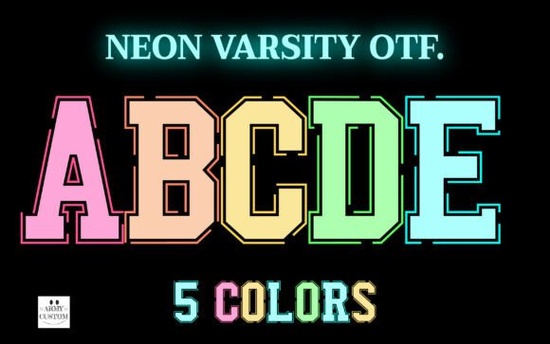
The Neon Varsity Font is a bold, glowing typeface that combines classic athletic lettering with a bright neon effect. It's built for sublimation projects but works well across all kinds of print-on-demand products. If you're looking for a font that makes designs pop on shirts, mugs, tumblers, and other merchandise, this one delivers a distinct look that's hard to ignore.
What makes this font stand out for sublimation designs?
Sublimation printing relies on vivid colors and sharp details. The Varsity Letters and Numbers neon typeface was designed with this in mind. Each letter and number carries a glowing neon effect that translates well onto polyester fabrics, ceramic mugs, and coated drinkware. The vibrant energy of the font gives products a youthful, sporty feel without looking generic.
Unlike standard varsity fonts that use flat block letters, this version adds a luminous quality. That extra visual layer makes it a strong choice when you want designs that look modern and eye-catching on finished products.
What can you create with a neon varsity style?
This typeface works across a wide range of projects. Here are some popular uses:
- Custom shirts and hoodies perfect for team names, numbers, and bold slogans
- Mugs and tumblers the neon glow adds personality to drinkware designs
- Phone cases and accessories a quick way to make trendy products
- Posters and wall art great for sports-themed or retro-inspired decor
- Social media graphics use it for Instagram posts, YouTube thumbnails, or event promos
- Stickers and decals the bold style cuts well and reads clearly at smaller sizes
If you're building a collection of colorful typefaces for your design toolkit, this one fills a specific niche that many other fonts don't cover.
Is this font easy to use for beginners?
For sublimation, you'll want to pair it with a dark or black background to get the full neon glow effect. On lighter surfaces, the glow may not be as visible, so keep that in mind when planning your layouts.
Who is this font best suited for?
The Neon Varsity Font is a solid pick for:
- Print-on-demand sellers who want fresh, trending design elements for their stores
- Small business owners creating branded merchandise or event materials
- Crafters and hobbyists working on personal projects like team gifts or party decor
- Graphic designers looking for a sporty, retro-neon aesthetic in their work
If your audience responds to bold colors and athletic styling, this typeface gives you a ready-made visual identity to work with.
How does it compare to other neon or varsity fonts?
There are plenty of varsity fonts and neon fonts available, but not many that combine both styles. Most athletic fonts stay flat and traditional. Most neon fonts lean more toward signage or 80s retro. This particular typeface sits in the middle it has the structure of classic letterman style with the visual punch of neon lighting. That combination makes it versatile for different project types while still having a clear, recognizable personality.
Tips for getting the best results
A few practical suggestions to make the most of this font:
- Use dark backgrounds. The neon effect shines brightest against black or deep-colored backdrops.
- Keep text short. Headlines, names, and numbers work best. Long paragraphs won't showcase the glow as effectively.
- Test on your product. Print a sample before committing to a large batch. Colors can shift depending on your printer and substrate.
- Pair with complementary fonts. Use a simple sans-serif for body text so the varsity font stays the focal point.